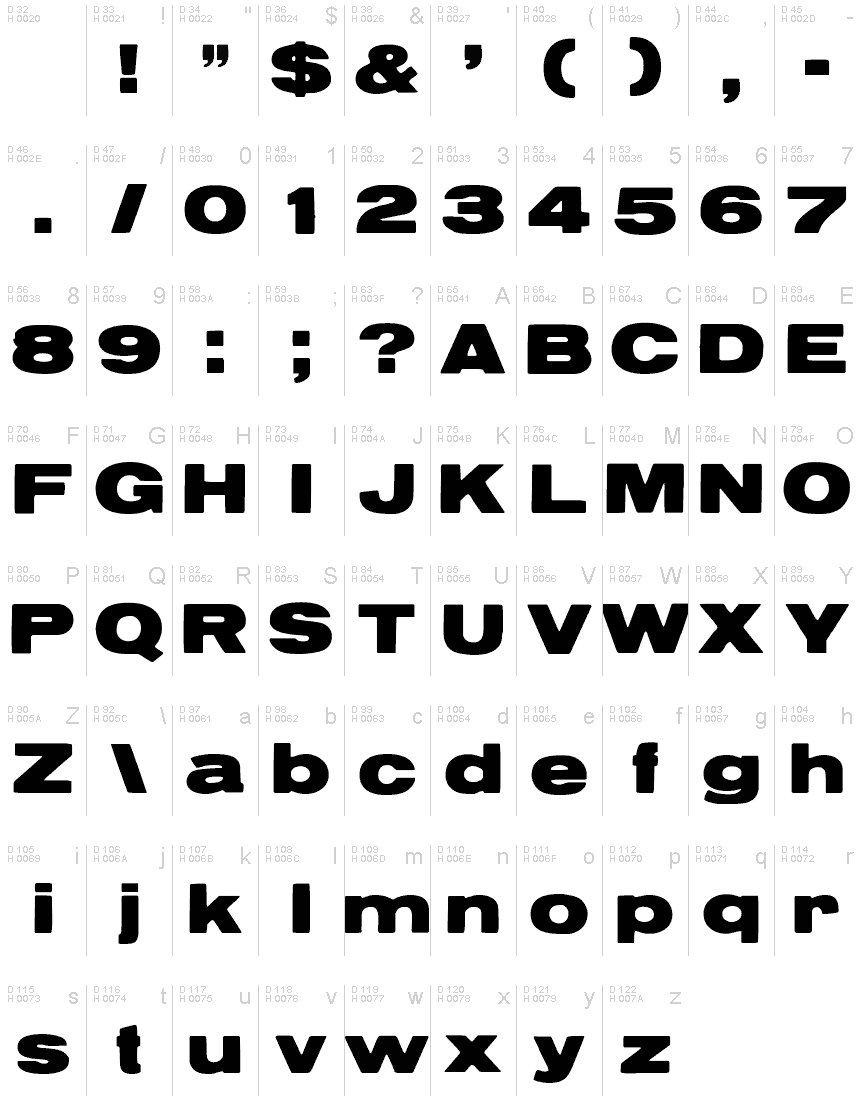
ReservoirGrunge
Reservoir Grunge by ZETAfonts is a bold and expansive display font that commands attention. Its robust weight coupled with its expanded width forms a commanding presence on the page, while the grunge-inspired textures add a raw, edgy aesthetic that resonates with contemporary design trends. This typeface is an embodiment of strength and rebellion, making it an ideal choice for projects that aim to stand out and make a statement.
The weathered details of Reservoir Grunge are meticulously crafted to balance readability with character. Each letter seems to tell a story of its own, making this font not just a means of communication but an artful expression. Whether applied to band posters, urban fashion branding, or cutting-edge editorial design, Reservoir Grunge offers designers the versatility to explore creative ideas while maintaining visual impact.
Its unique blend of modern grunge stylings ensures that any project utilizing Reservoir Grunge will leave a lasting impression. Embrace the boldness and let your creative endeavors be infused with the distinct personality of Reservoir Grunge.
The weathered details of Reservoir Grunge are meticulously crafted to balance readability with character. Each letter seems to tell a story of its own, making this font not just a means of communication but an artful expression. Whether applied to band posters, urban fashion branding, or cutting-edge editorial design, Reservoir Grunge offers designers the versatility to explore creative ideas while maintaining visual impact.
Its unique blend of modern grunge stylings ensures that any project utilizing Reservoir Grunge will leave a lasting impression. Embrace the boldness and let your creative endeavors be infused with the distinct personality of Reservoir Grunge.